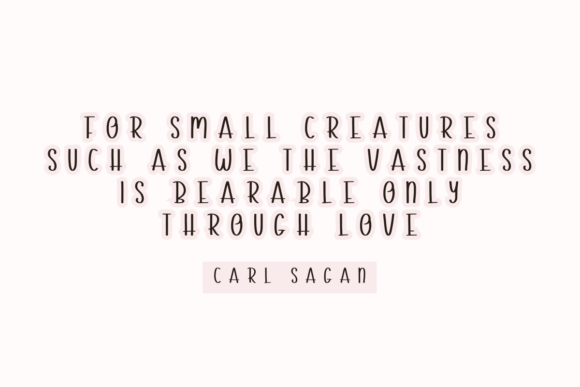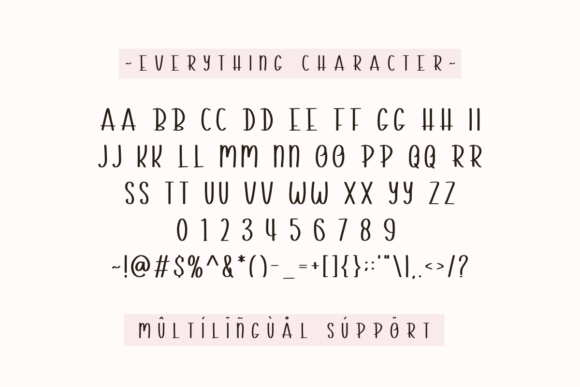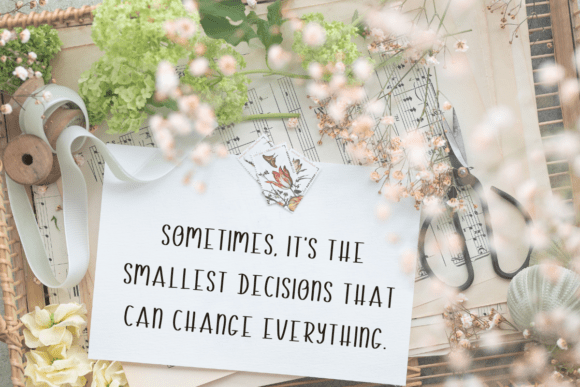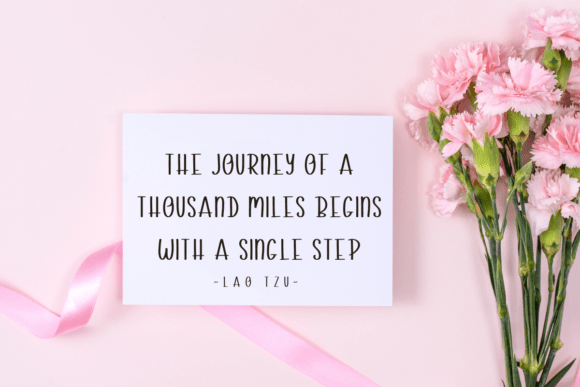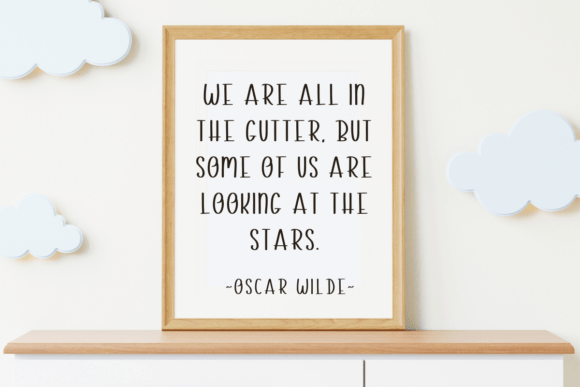
The Perfect Addition to Your Next Creative Project
Have you ever been brainstorming ideas for a new design, and suddenly, the perfect font pops into your head? That’s exactly what happened to many designers when they discovered the Everything Font. This charming handwriting font is designed to bring a touch of playful simplicity to your designs, making it perfect for a wide range of creative projects.
The Everything Font features tall, slightly condensed letterforms with rounded edges and a natural, handwritten feel, creating a friendly and approachable aesthetic. Whether you’re creating adorable stickers, fun planner layouts, or charming labels, this font is sure to add a personal and whimsical touch. Its versatility makes it a valuable addition to any designer’s toolkit, especially for those who enjoy crafting with Cricut, sublimation, and other DIY methods.
Key Features of Everything Font
- Unique Characteristics: Everything Font features a unique blend of sans-serif and script elements, making it ideal for creating visually appealing and attention-grabbing text.
Everything Font Review
I’ve had the chance to work with the “Everything Font” and I must say, it’s been an interesting experience. ✨ Here are some of the things that work well:
- It’s a great font for body text, making it easy to read even at smaller sizes.
- The font has a clean and minimalist design, which makes it perfect for modern websites and applications.
- It supports a wide range of languages, making it a great option for international projects.
- The font lacks personality and can come across as bland in certain situations.
- The font family is limited, with only a few weights and styles available.
- The font may not be the best choice for headings or titles, as it can be difficult to read in bold.
Overall, the “Everything Font” is a solid choice for body text, but it may not be the best option for projects that require a lot of creativity or personality. It’s a good all-around font, but it may not stand out in a crowd.
Getting the Most Out of Everything Font
Here are some tips for getting the most out of Everything Font:
- Use the font at a large size to make it more readable.
- Customize the font’s color and style to match your design’s aesthetic.
- Use the font in combination with other fonts to create a unique and interesting design.
Here are some common use cases for Everything Font:
- Body text
- Infographics and data visualizations